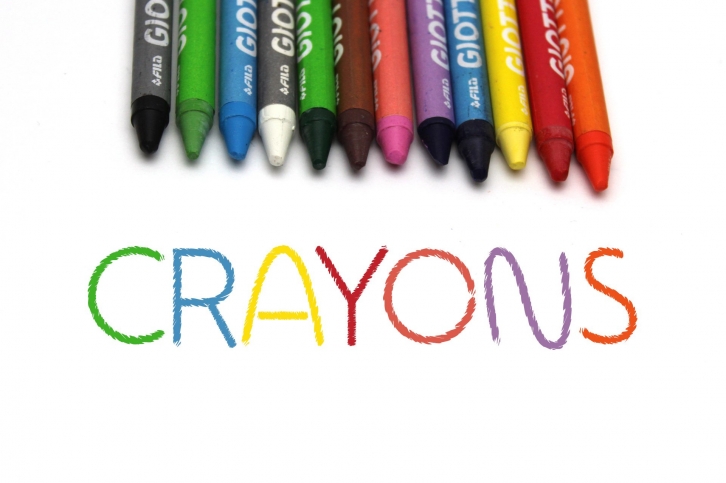
Crayons Sketch Font Download
Crayons Sketch is a great font that was designed by ampersand. Imagine the amount of combinations you can create using this font! The archive is 5.83 MB and it was released on December 16, 2020. Crayons Sketch looks beautiful on wedding invitations, greeting cards, logos, posters, labels, t-shirt designs, logos, business cards and is perfect for use in ink or watercolor works, fashion, magazines, packaging and food menus, children's books and more!